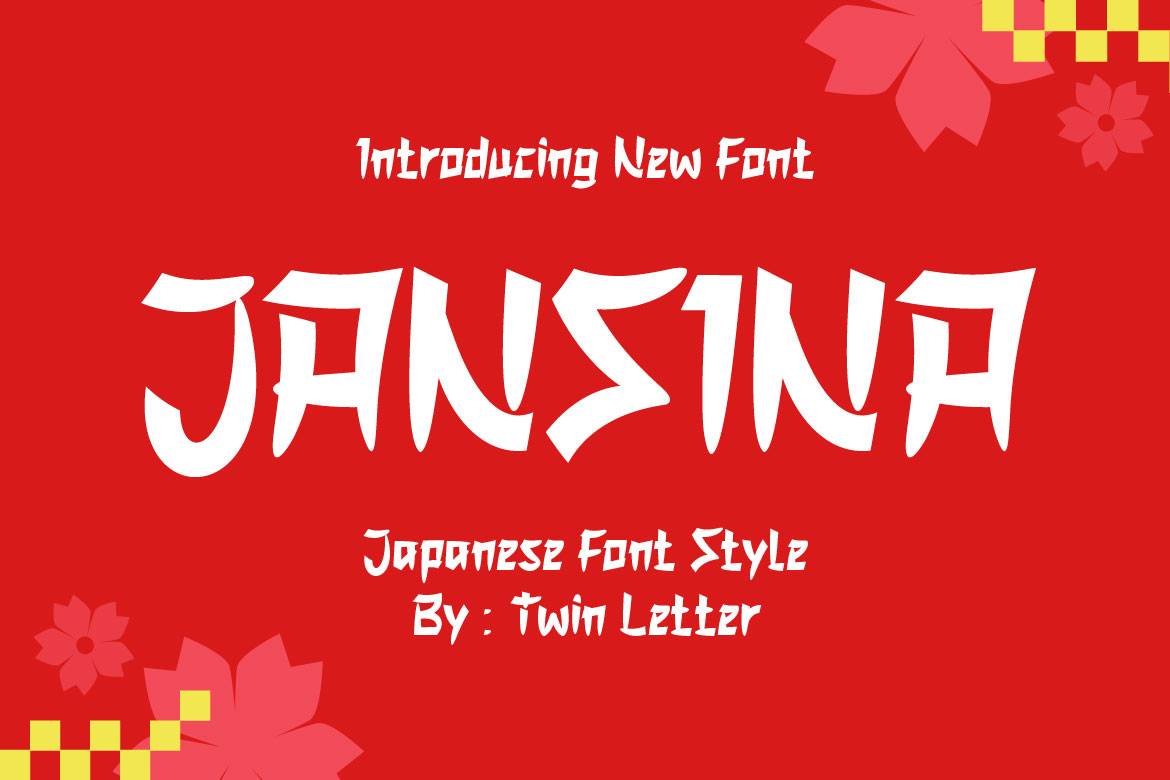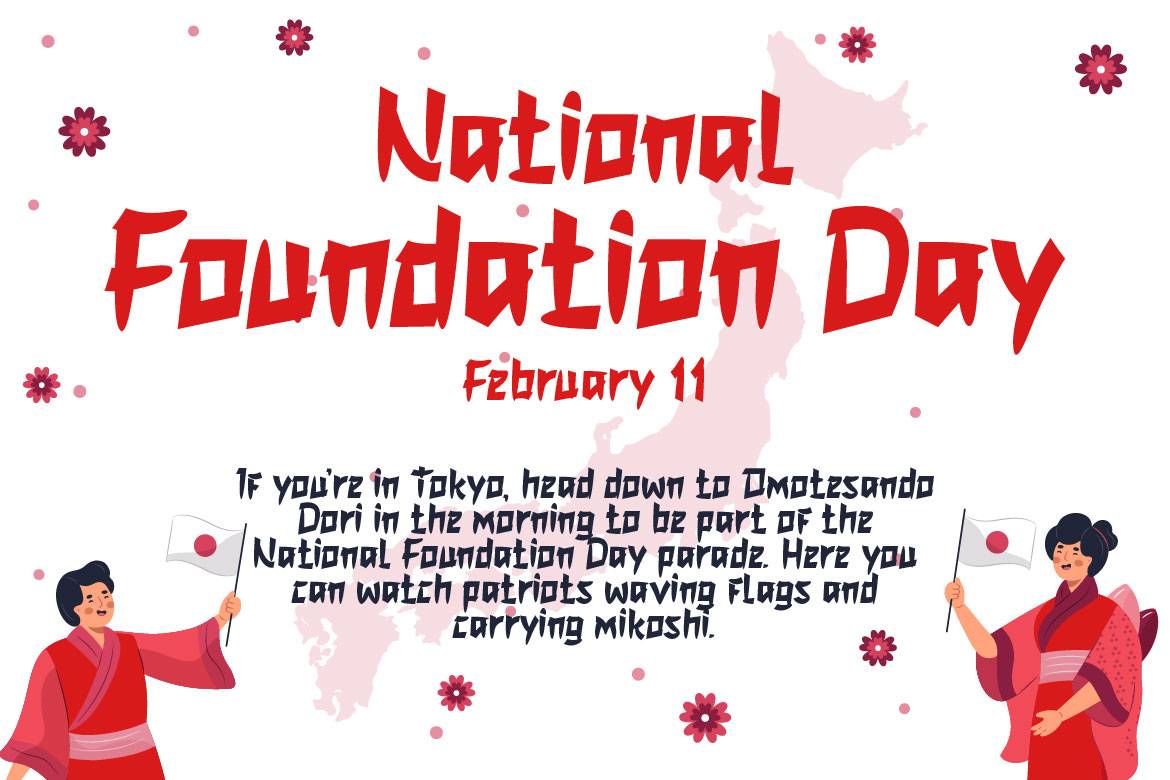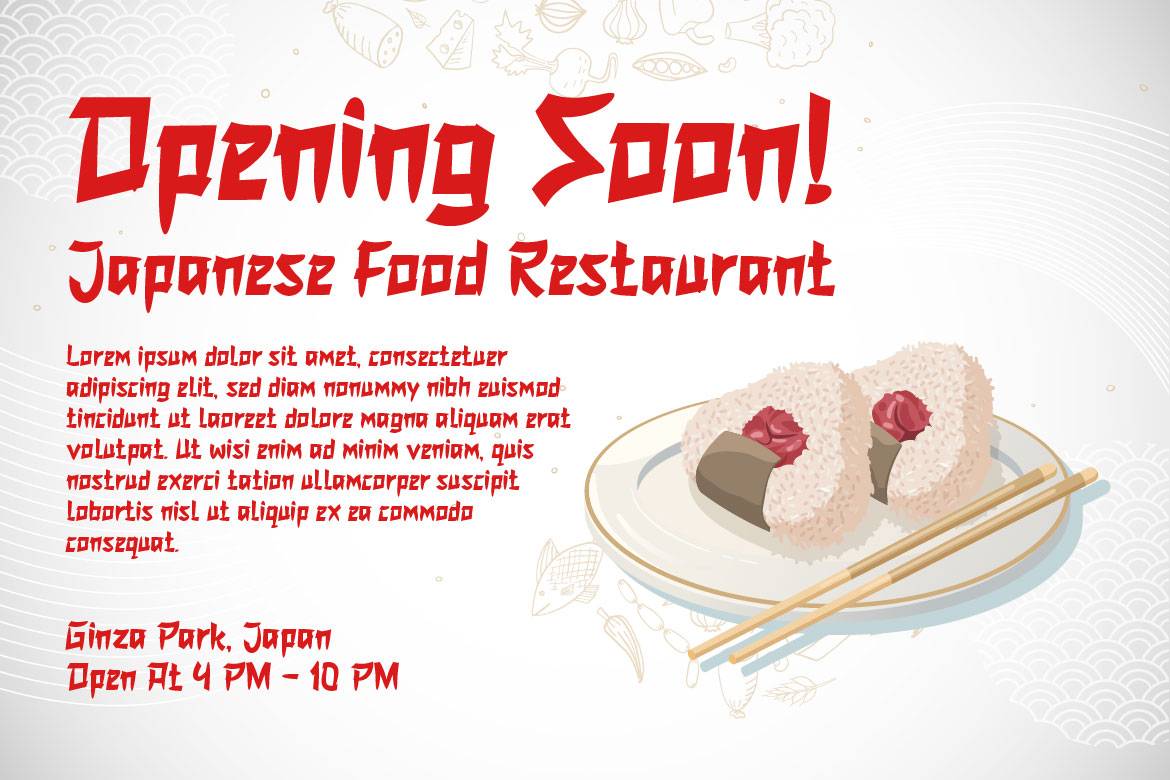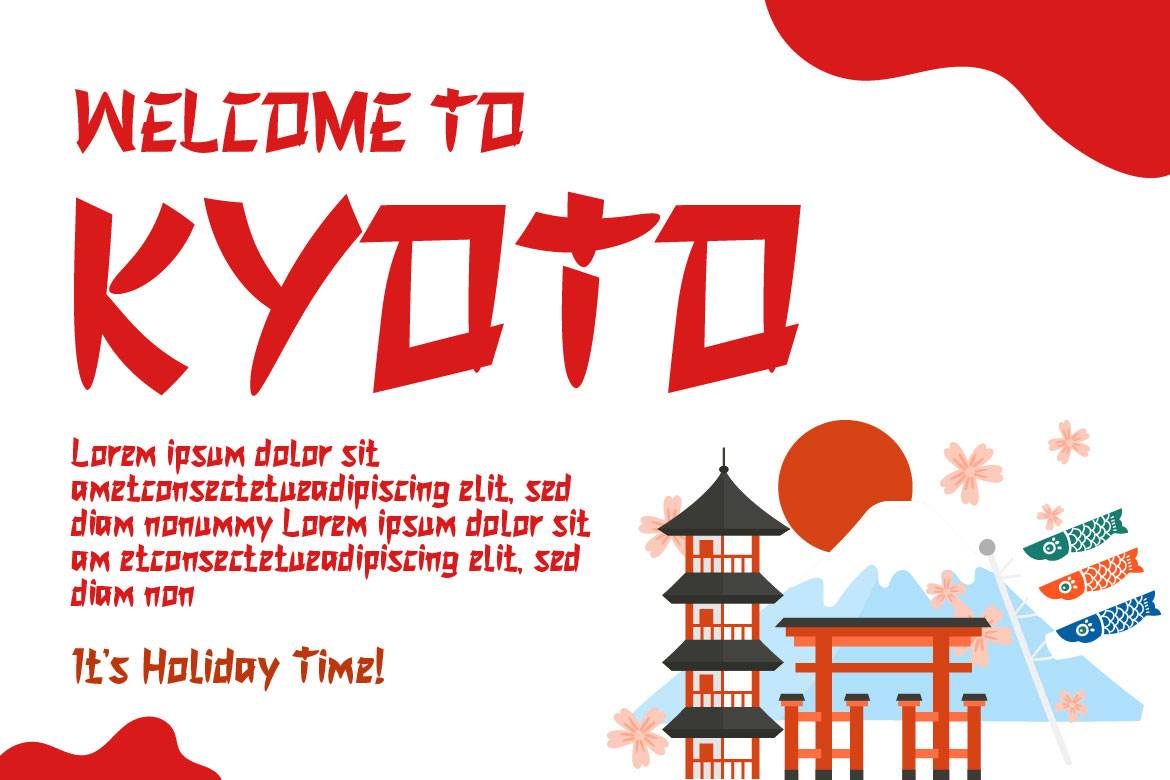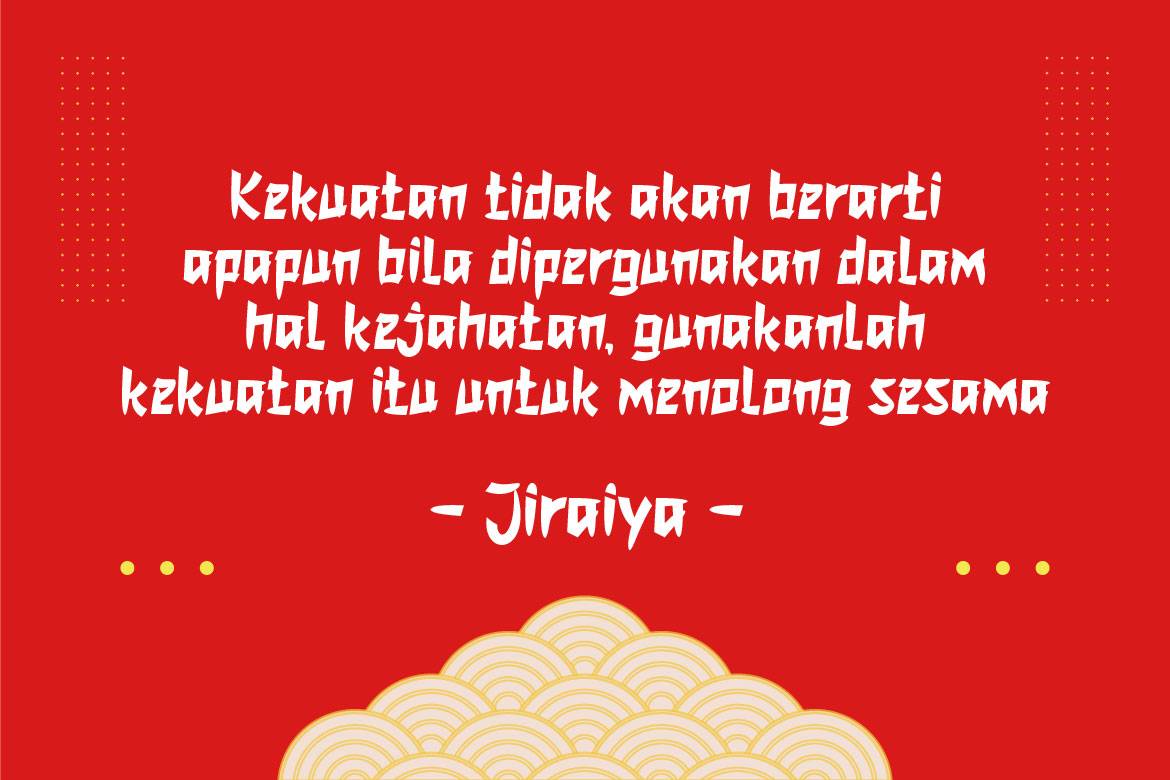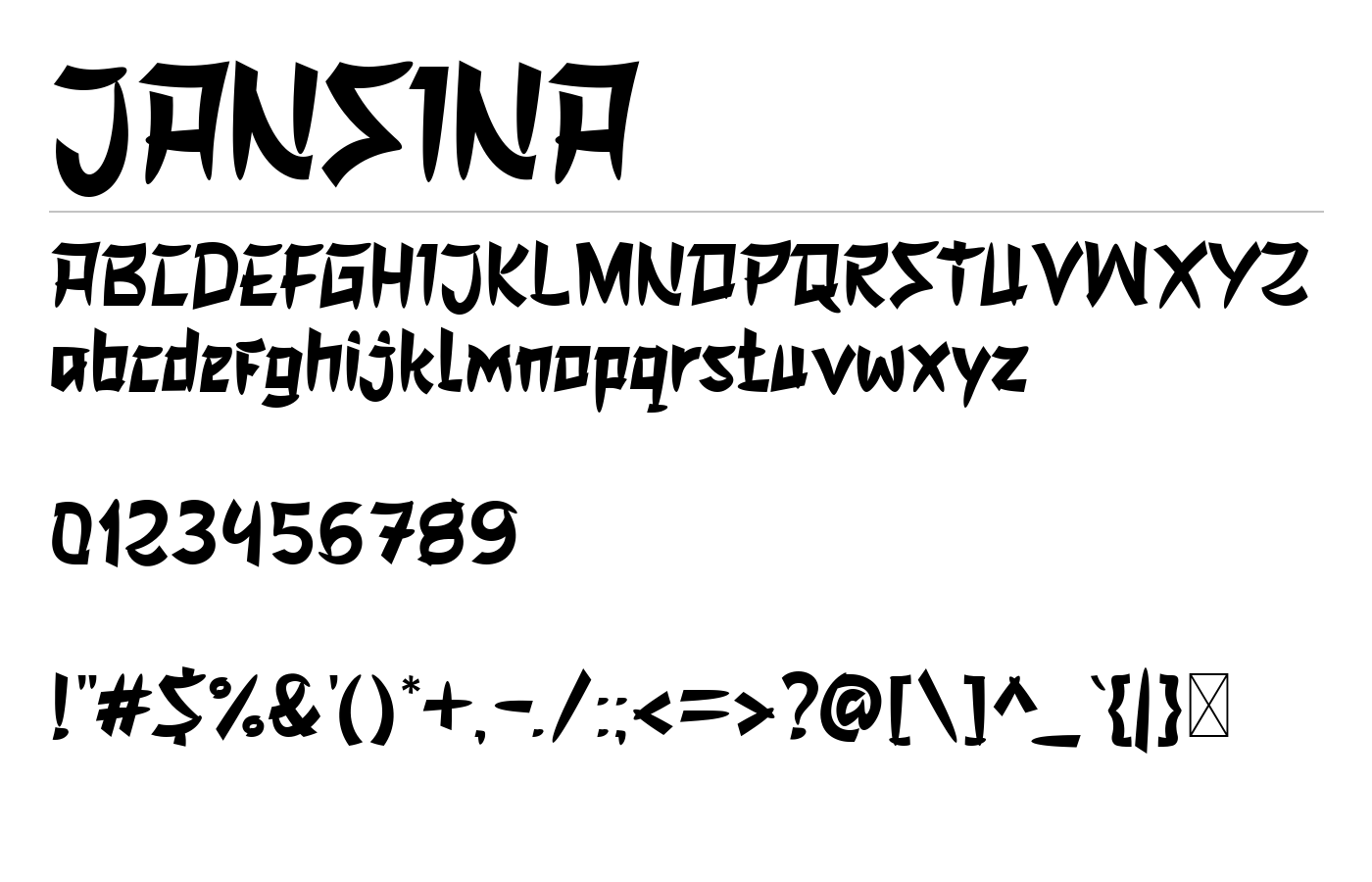
Jansina is a bold, angular sans serif font with a distinctive, edgy style that blends sharp, geometric forms with a slightly calligraphic flair. Its unique letter shapes and strong presence make it ideal for eye-catching headlines, branding, and creative projects that seek a modern, dynamic, and artistic vibe. This font works well where impact and originality are key, lending a sense of boldness and personality to any design.
Jansina Font
About Jansina Font